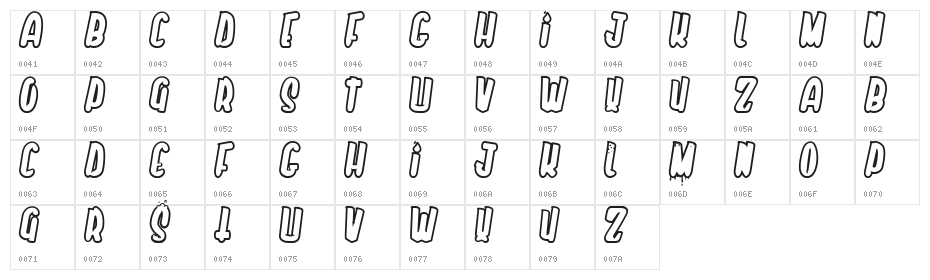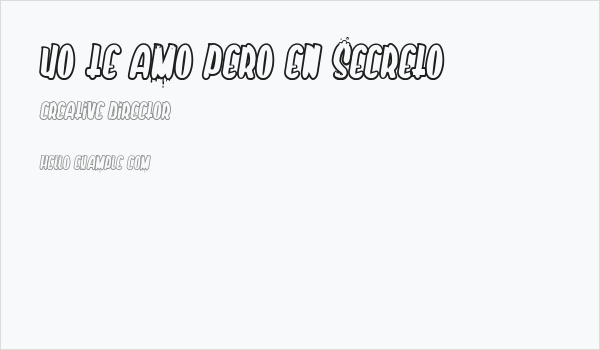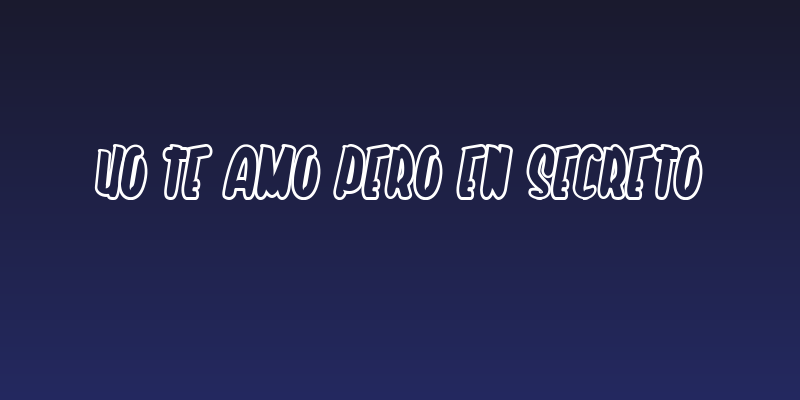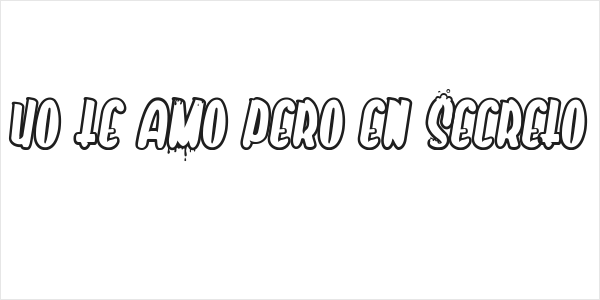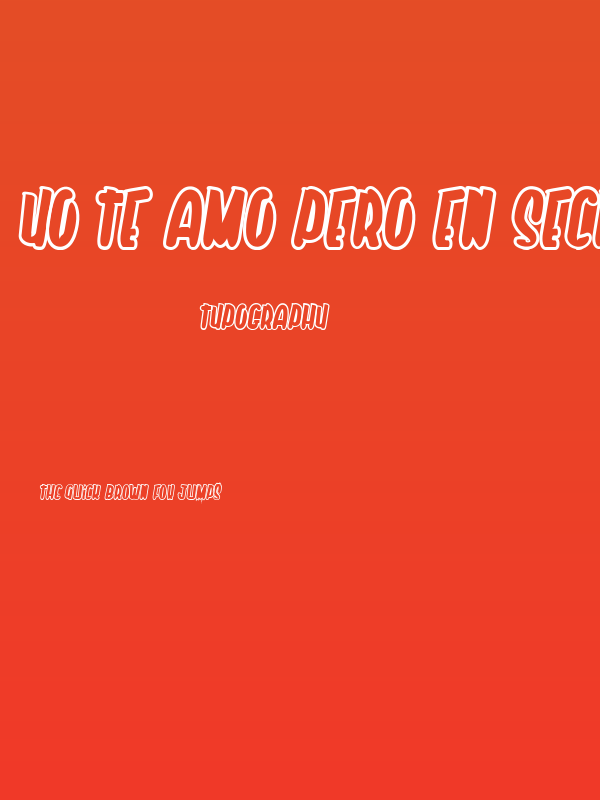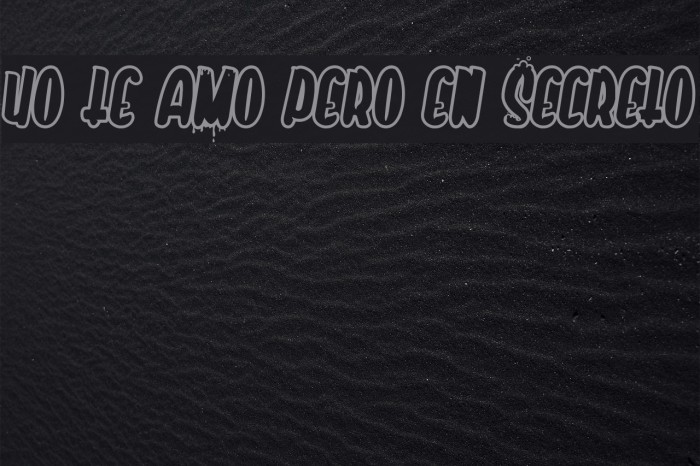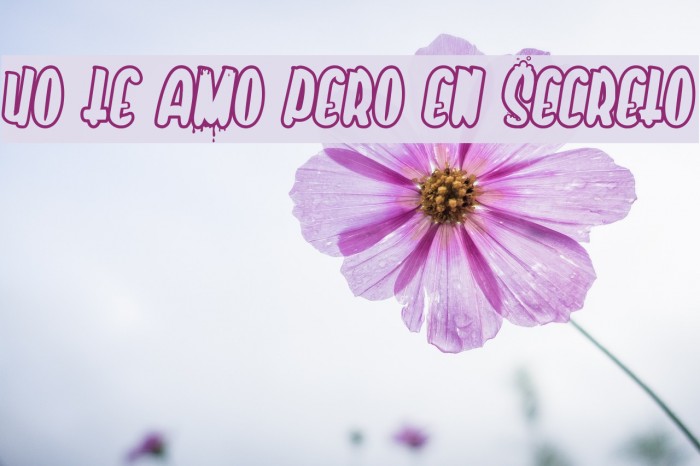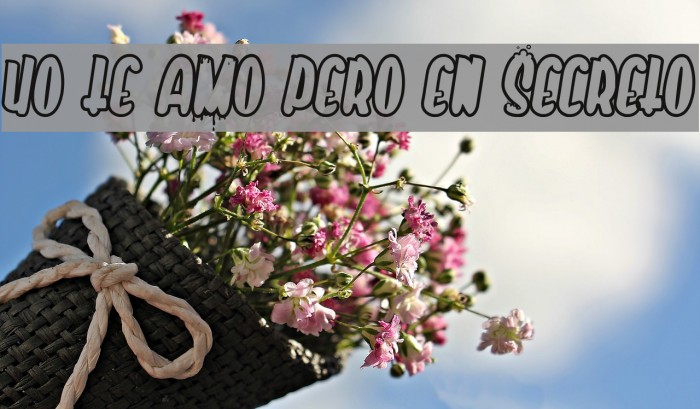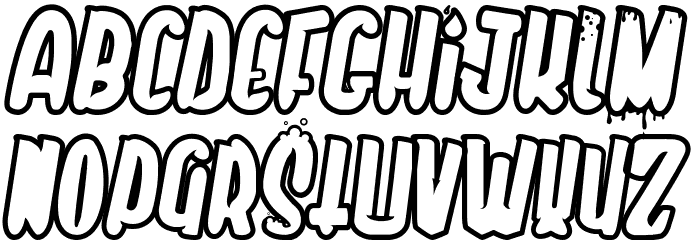
Yo te amo pero en secreto Font
Yo te amo pero en secreto Description
This font features a bold, playful style with a cartoonish and graffiti-like appearance. The letters are outlined with a thick black border, giving them a strong presence. Each character has a unique, slightly irregular shape, adding to the whimsical and informal feel. The font includes uppercase letters, numbers, and a selection of special characters, all maintaining the same energetic and dynamic style. The design is reminiscent of street art, making it suitable for projects that require a fun and edgy look.
| Proposed Projects | Ideal for comic books, children's posters, street art-inspired designs, and playful branding. |